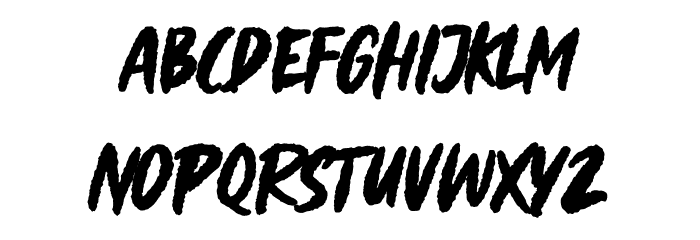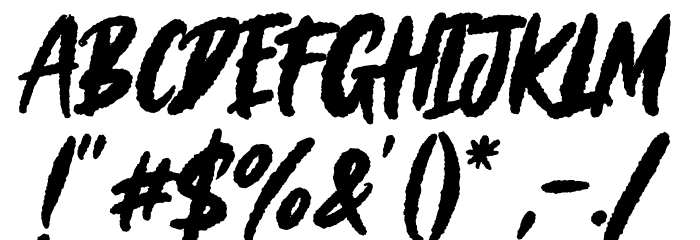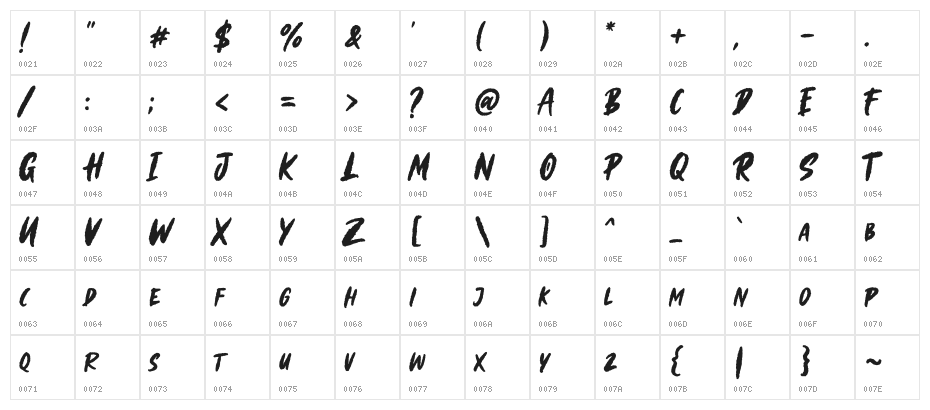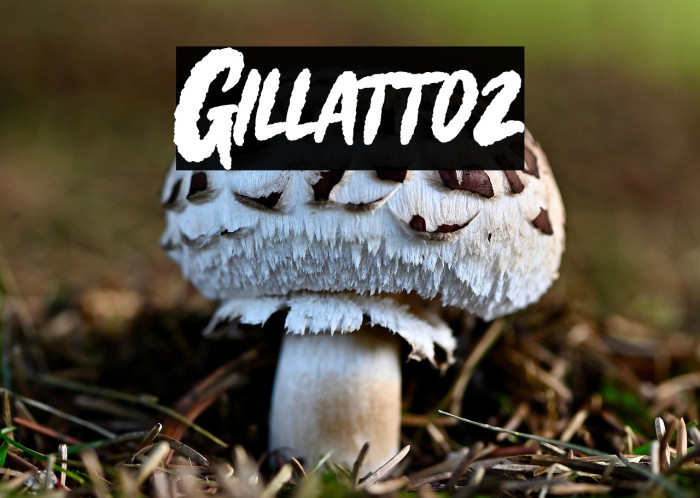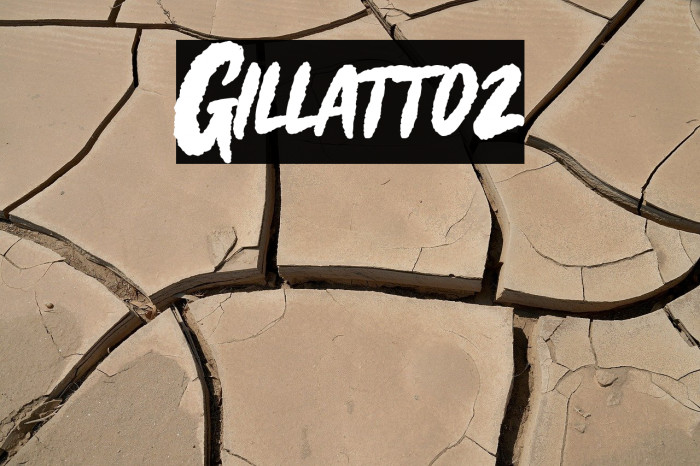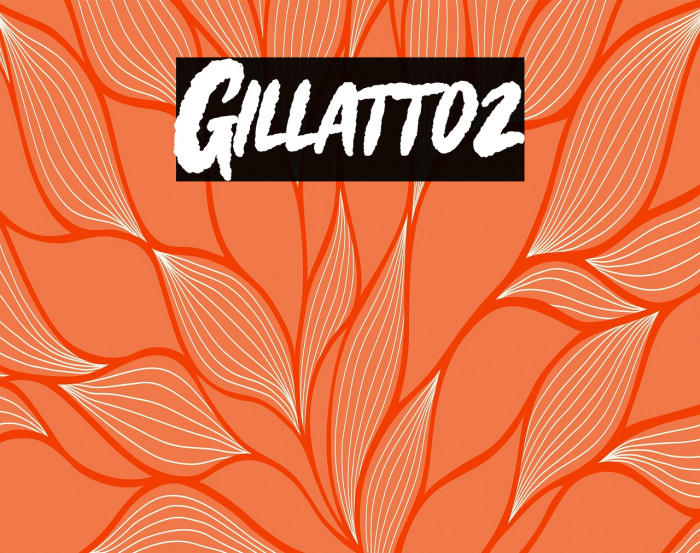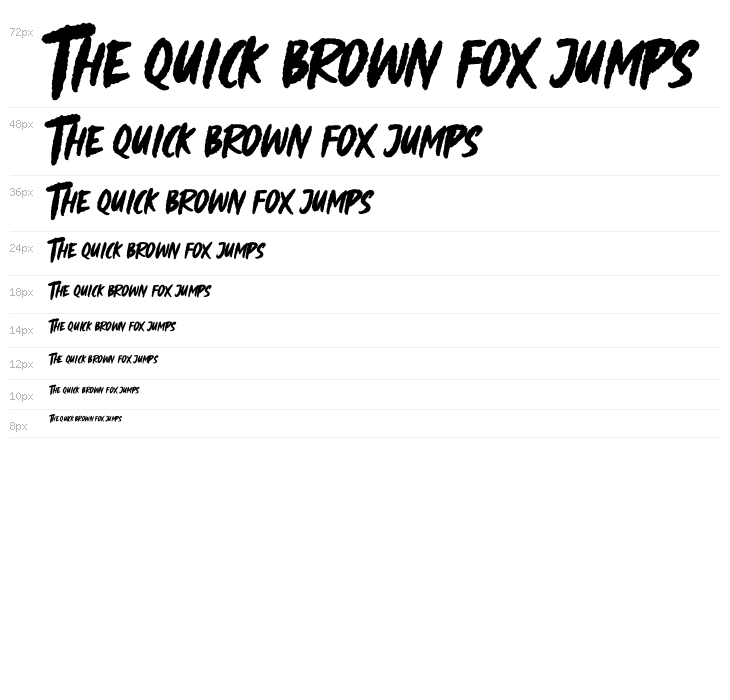
Gillattoz Font
This font features a bold, expressive style with a hand-painted appearance. The letters are dynamic and energetic, with thick strokes and a slightly irregular baseline that adds to its artistic flair. The uppercase and lowercase characters are well-balanced, maintaining a consistent flow throughout. The numbers and special characters are equally bold, ensuring a cohesive look across all text elements. This font's unique style makes it stand out, perfect for projects that require a strong visual impact.
A bold, hand-painted style font with dynamic, expressive strokes.
- Proposed Projects: Ideal for posters, branding, packaging, and any design that needs a bold, artistic touch.